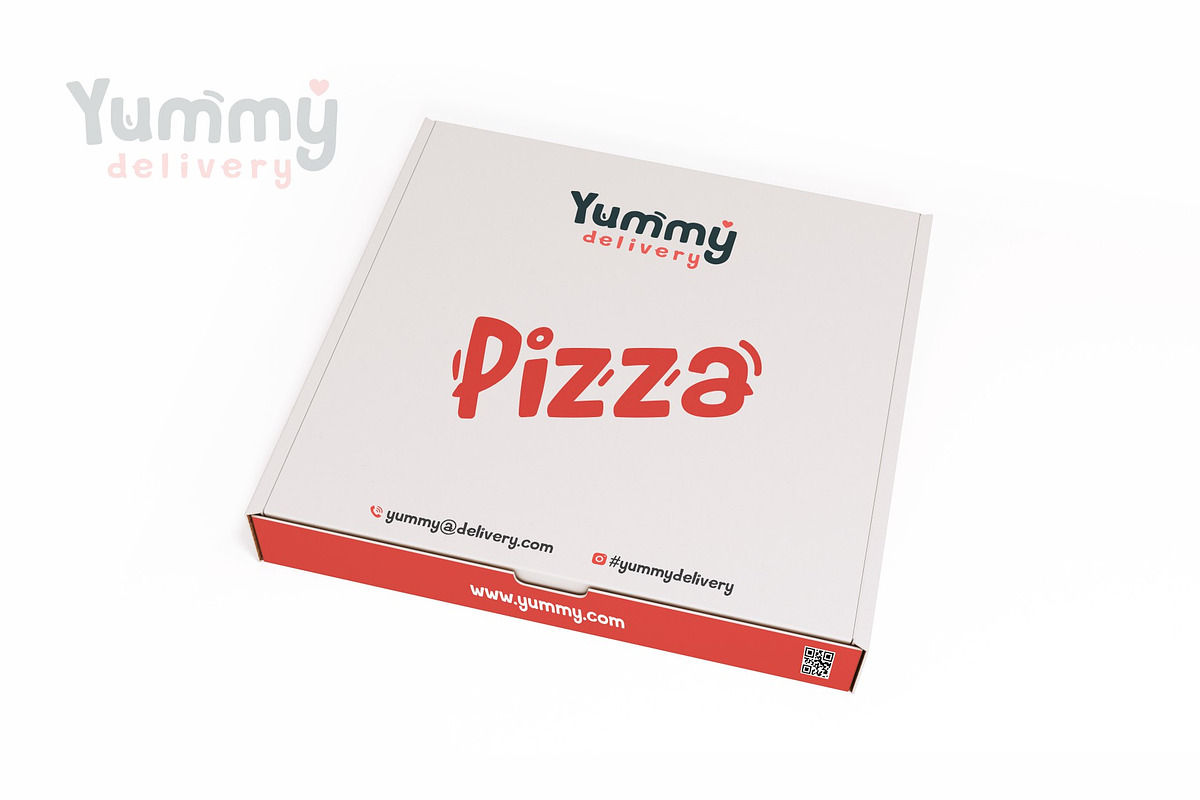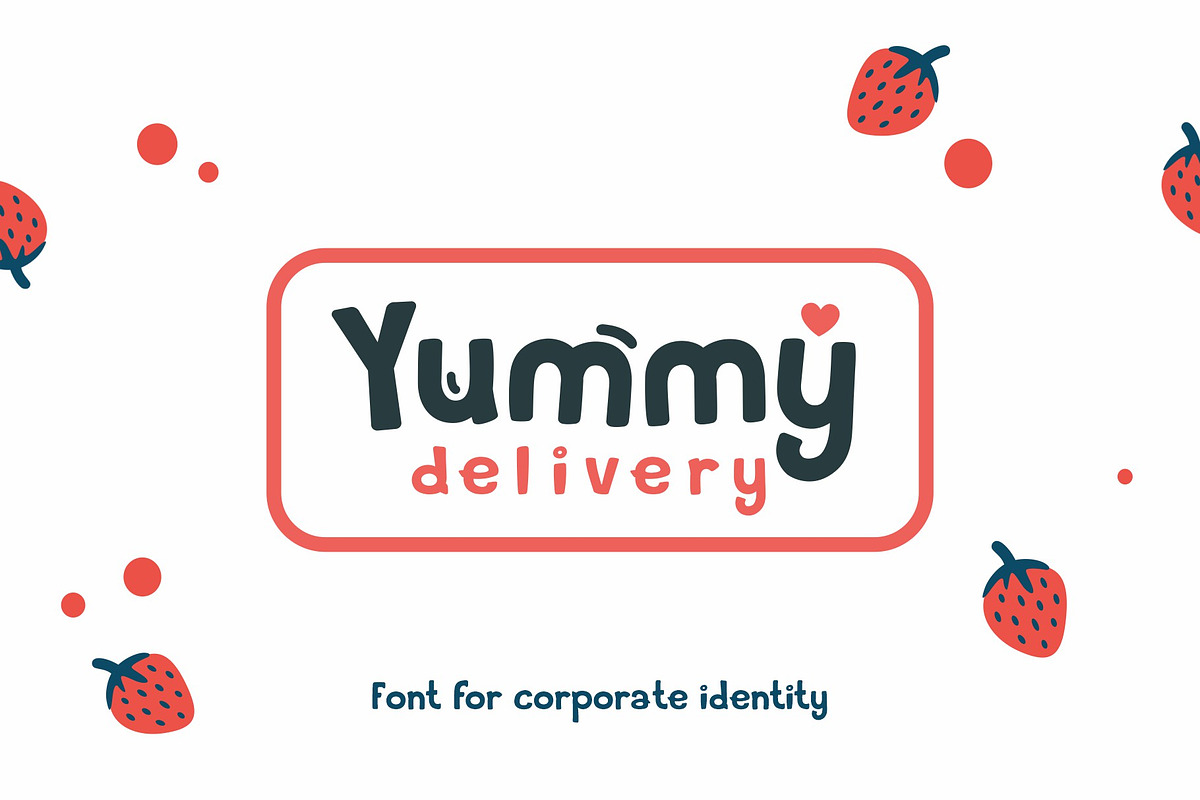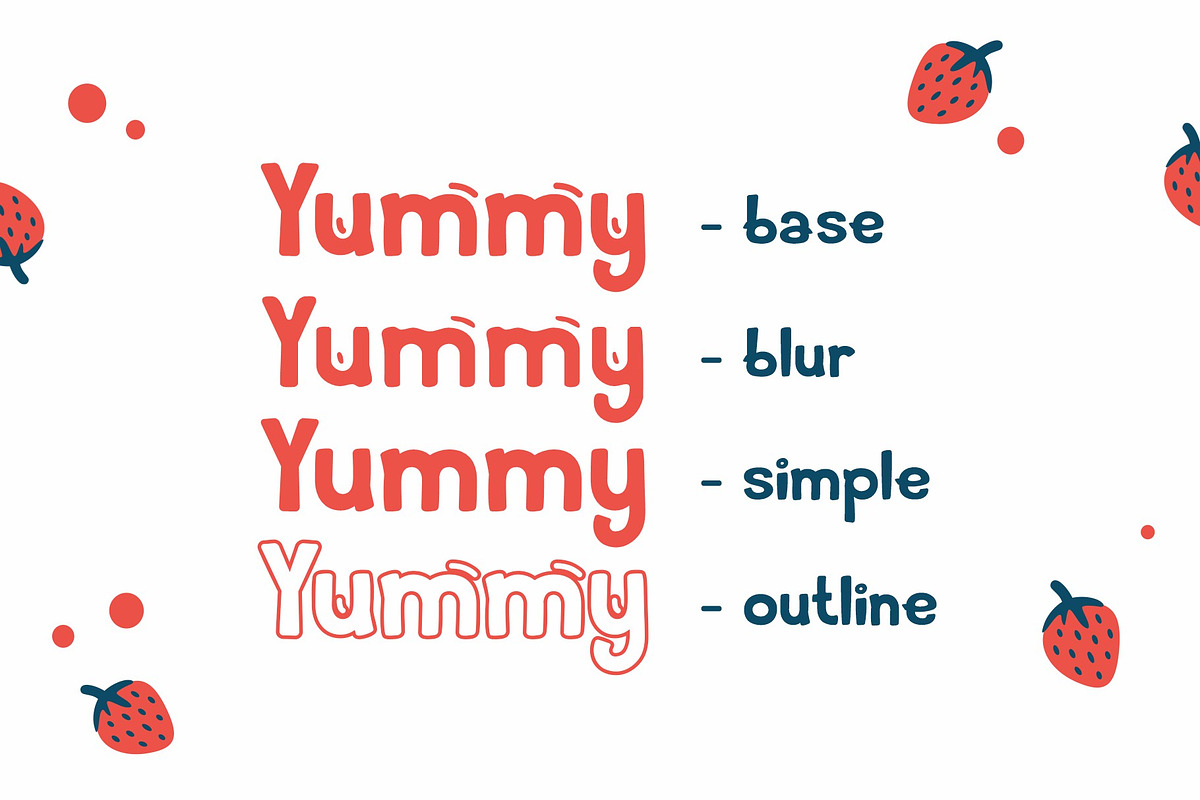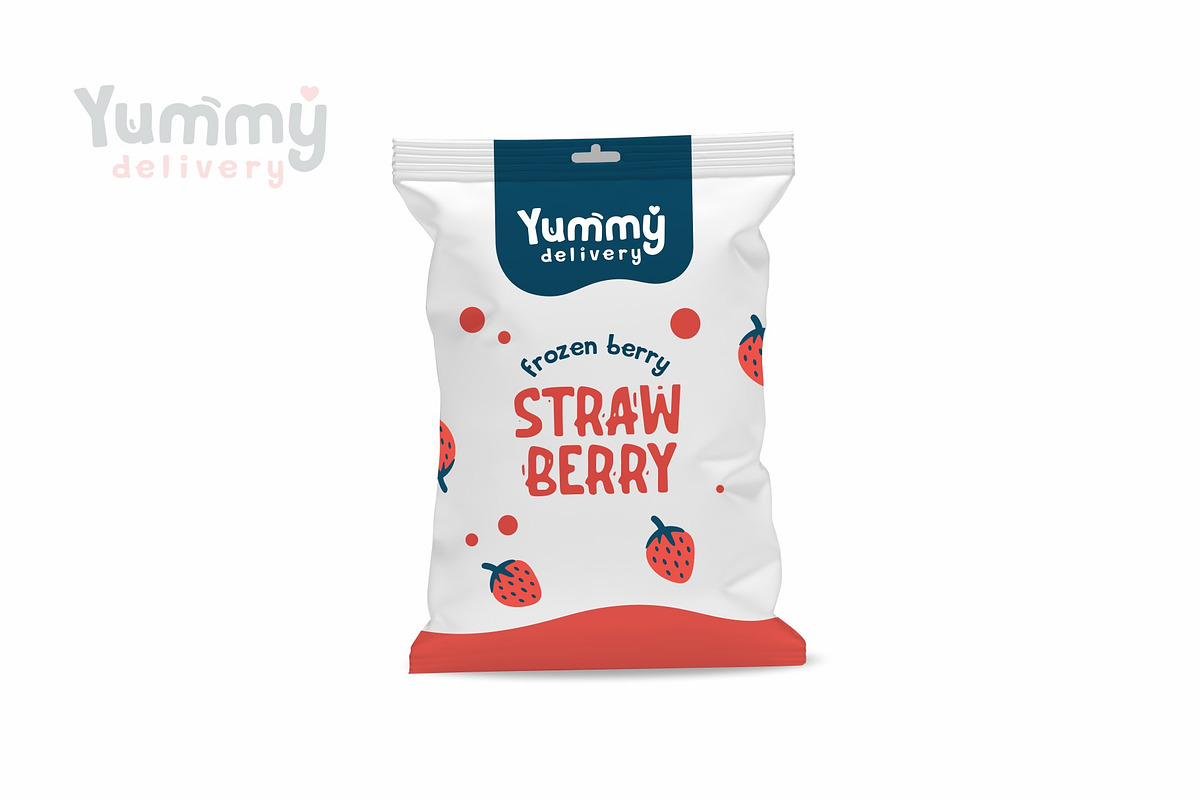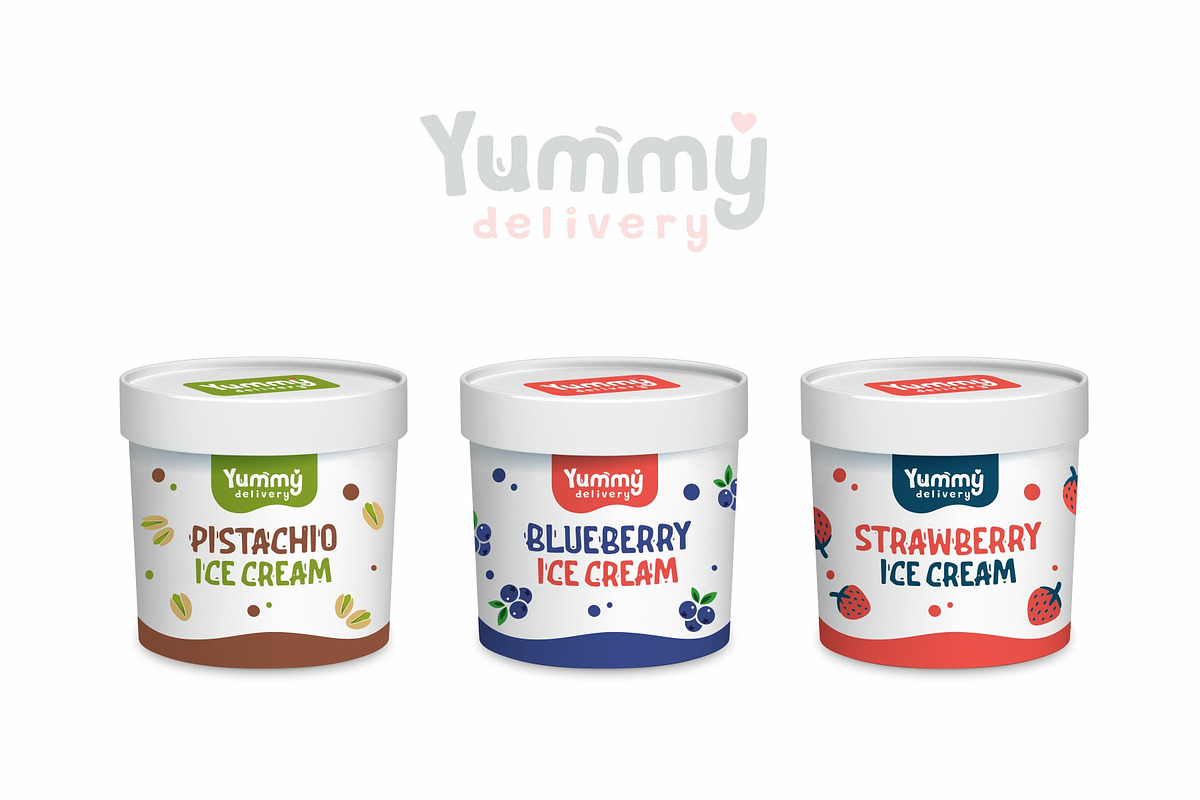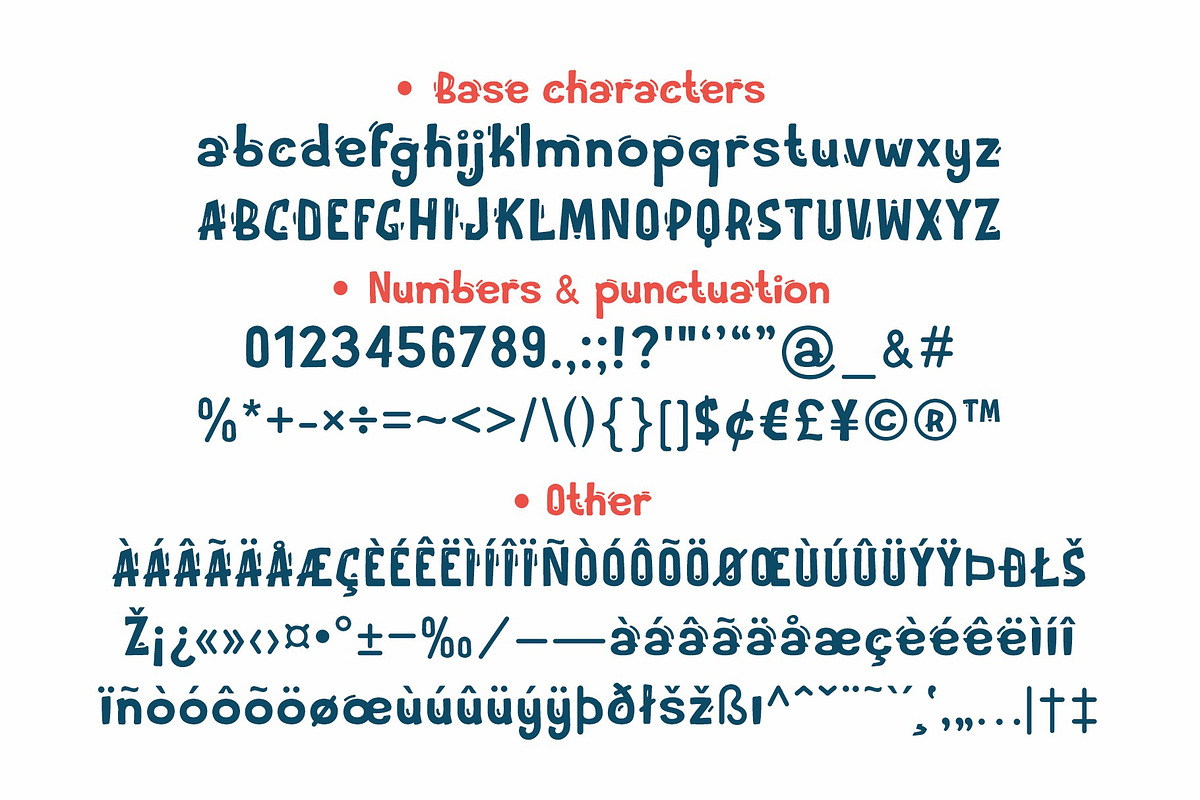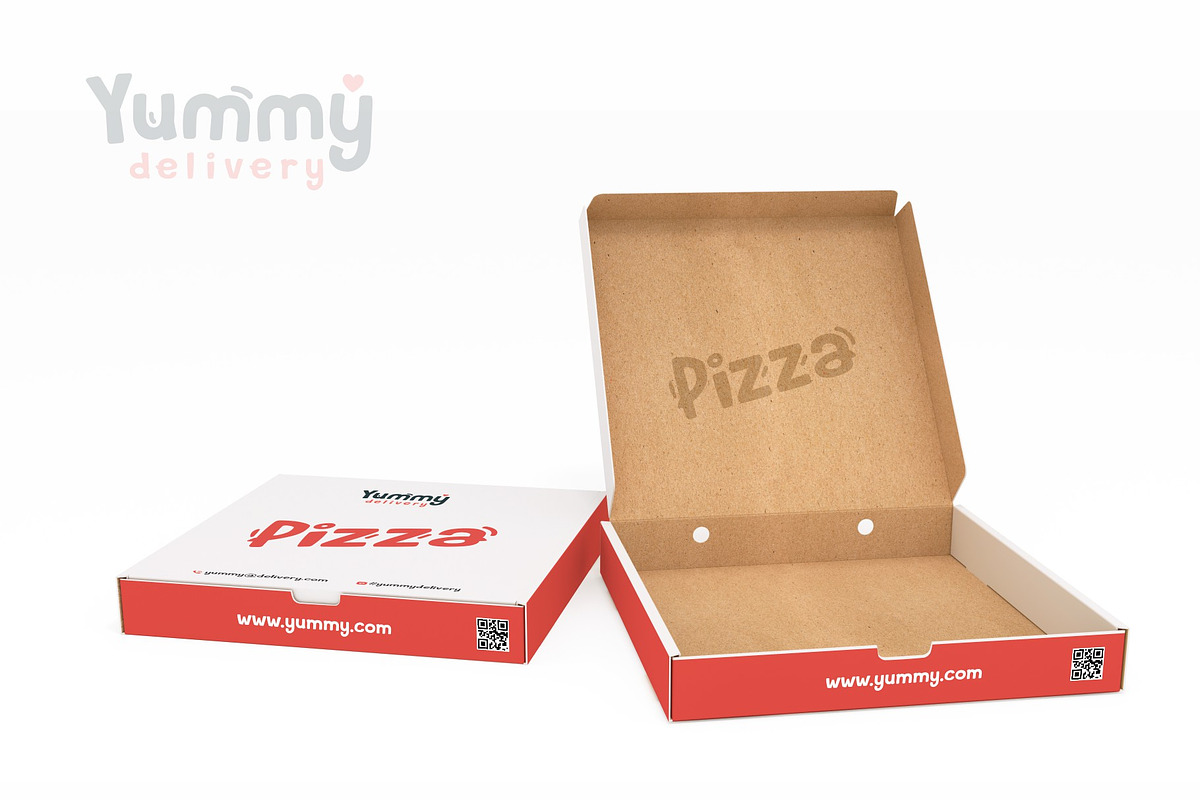
Yummy delivery
Yummy delivery - font for corporate identity. This font is designed to make it easy to create a corporate identity for delivering delicious food. Bright, pleasant font with decorative elements. Includes 4 fonts: main, decorative, blur, and outline. All 4 fonts contain upper and lower case letters, numbers, punctuation marks and multilingual characters for each style. As a bonus, I give renders of food packaging.